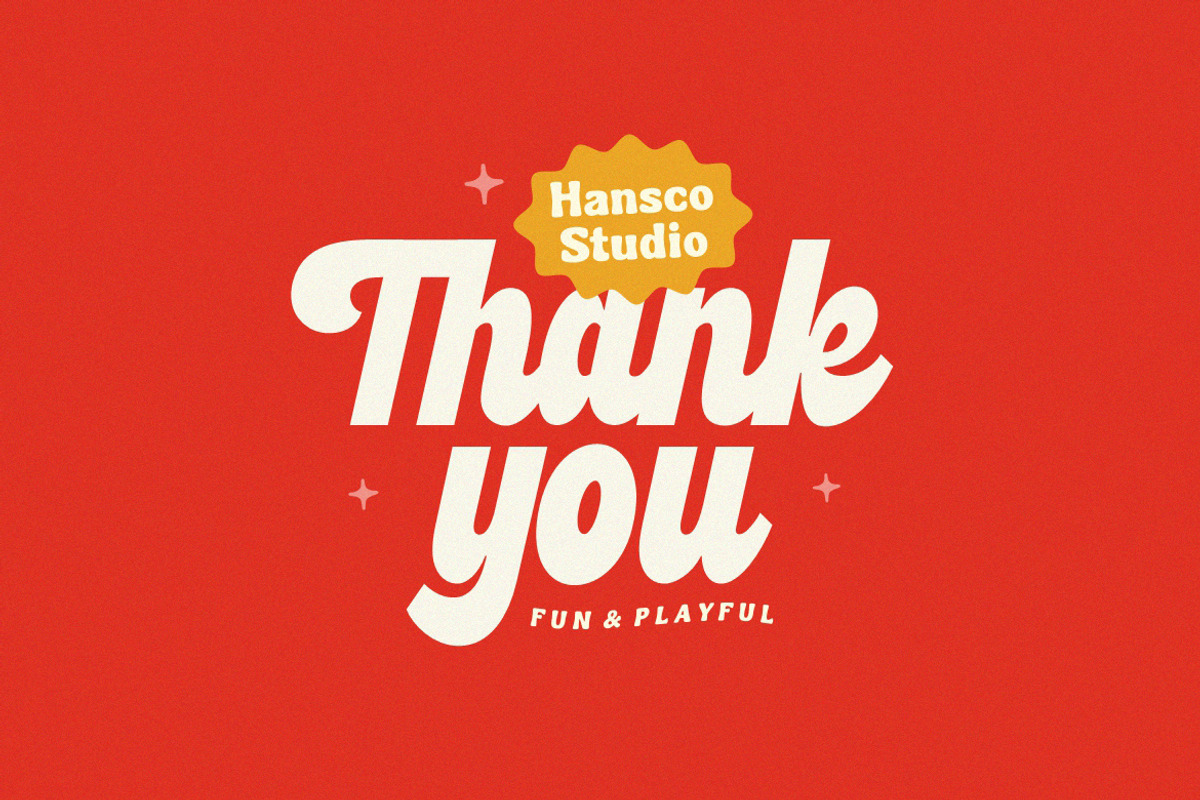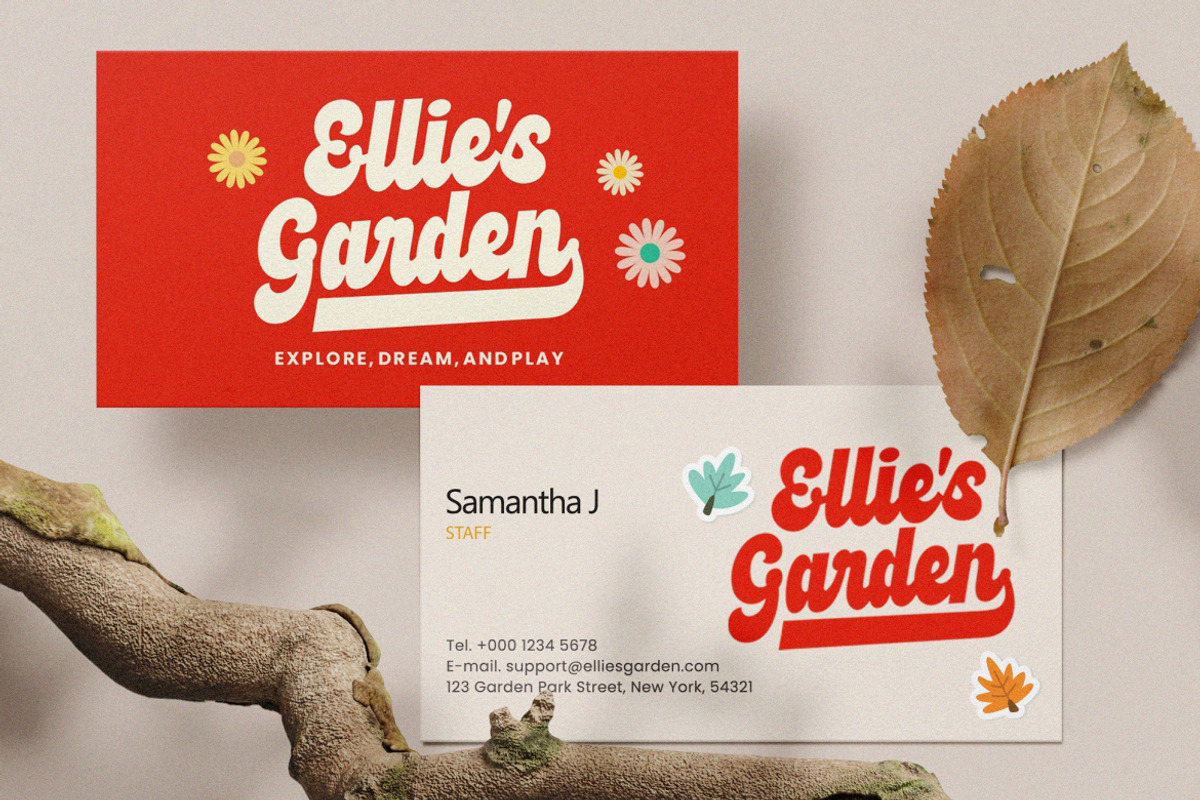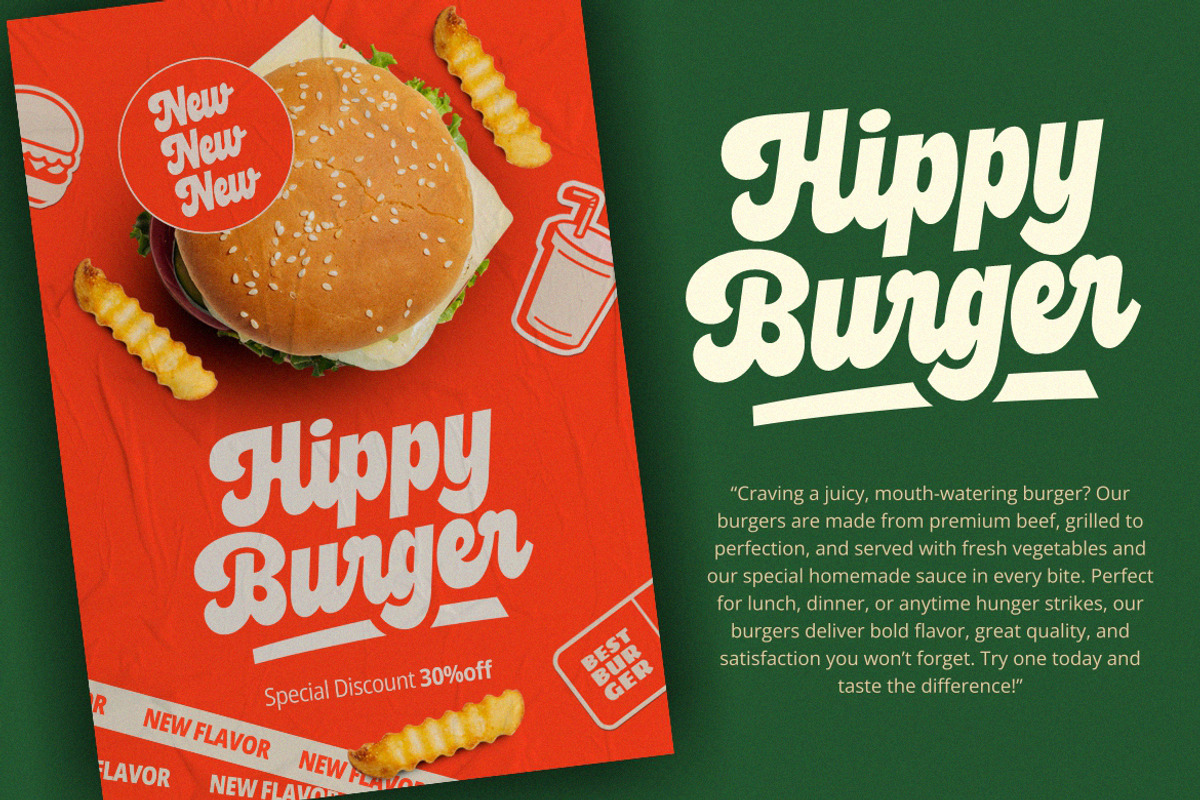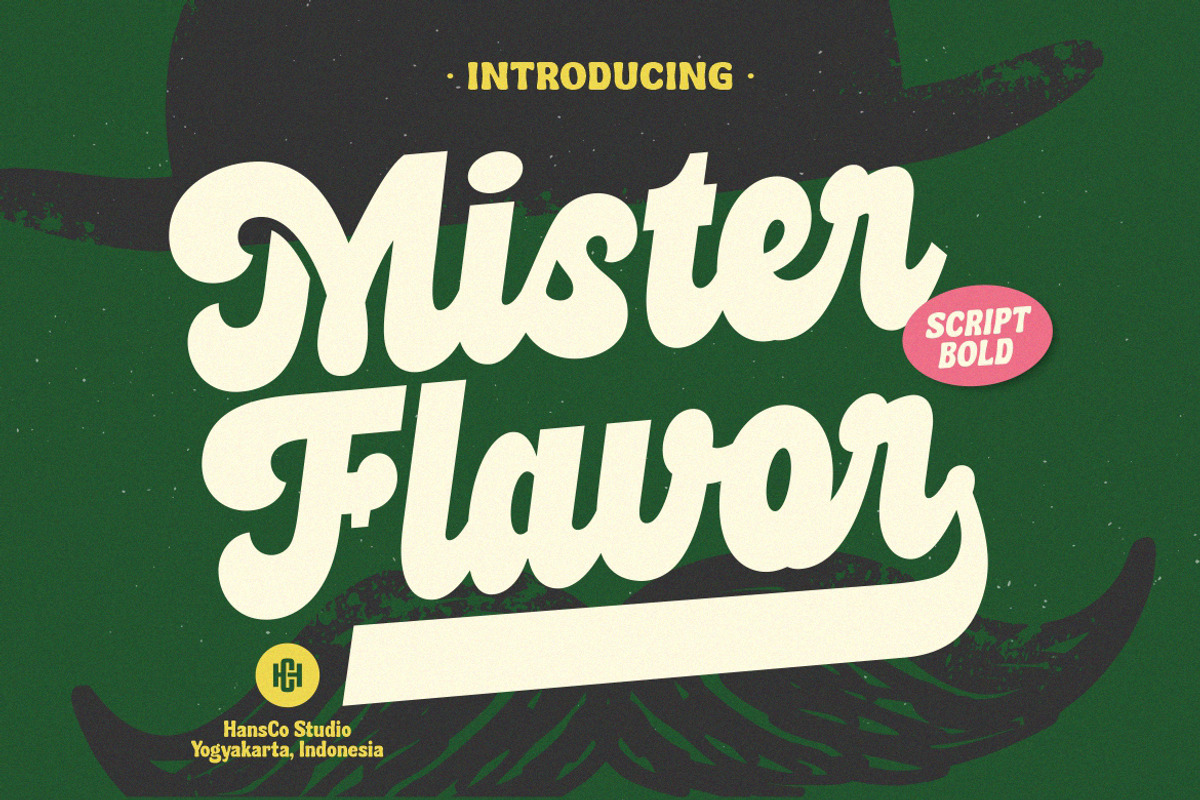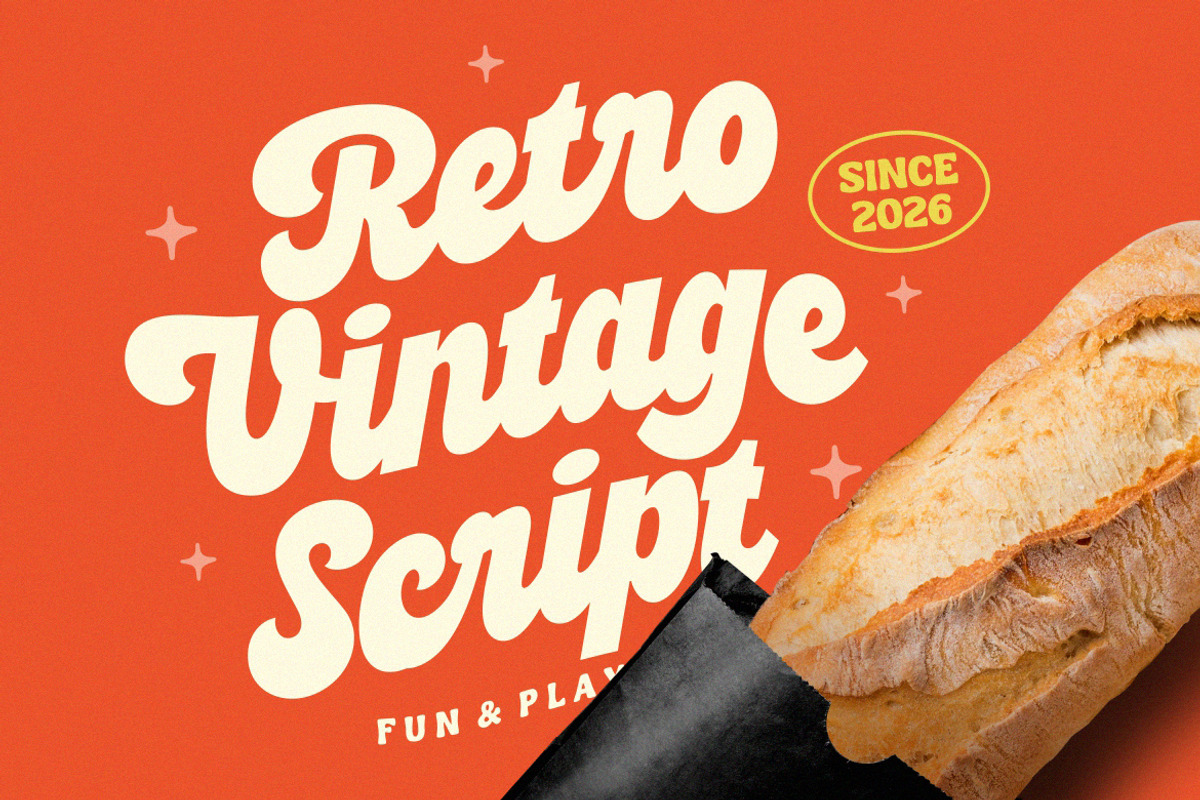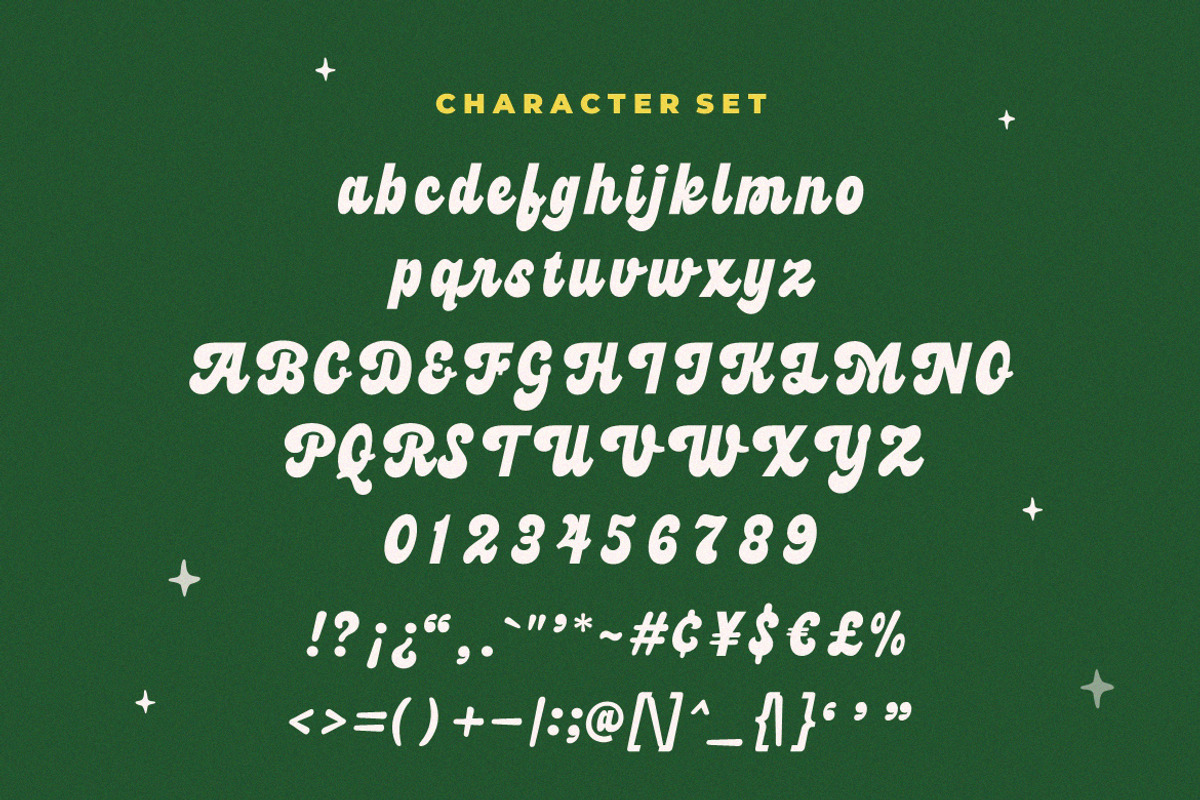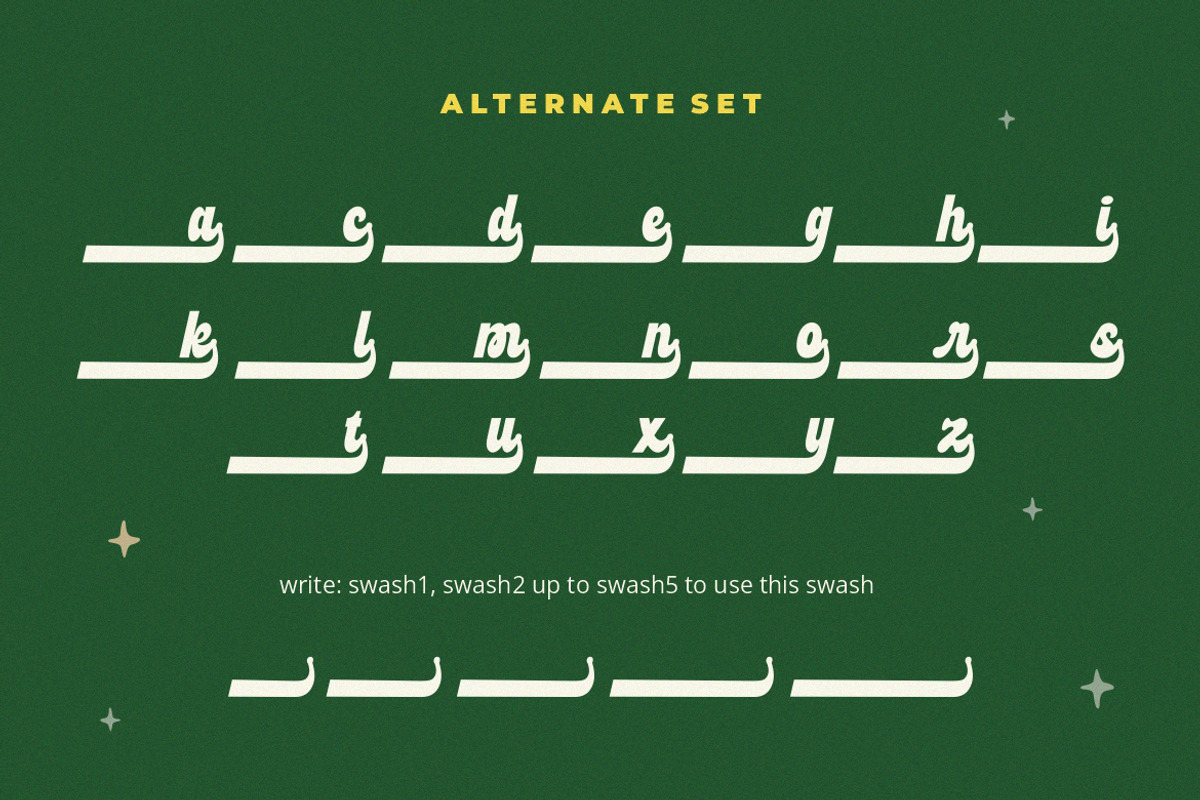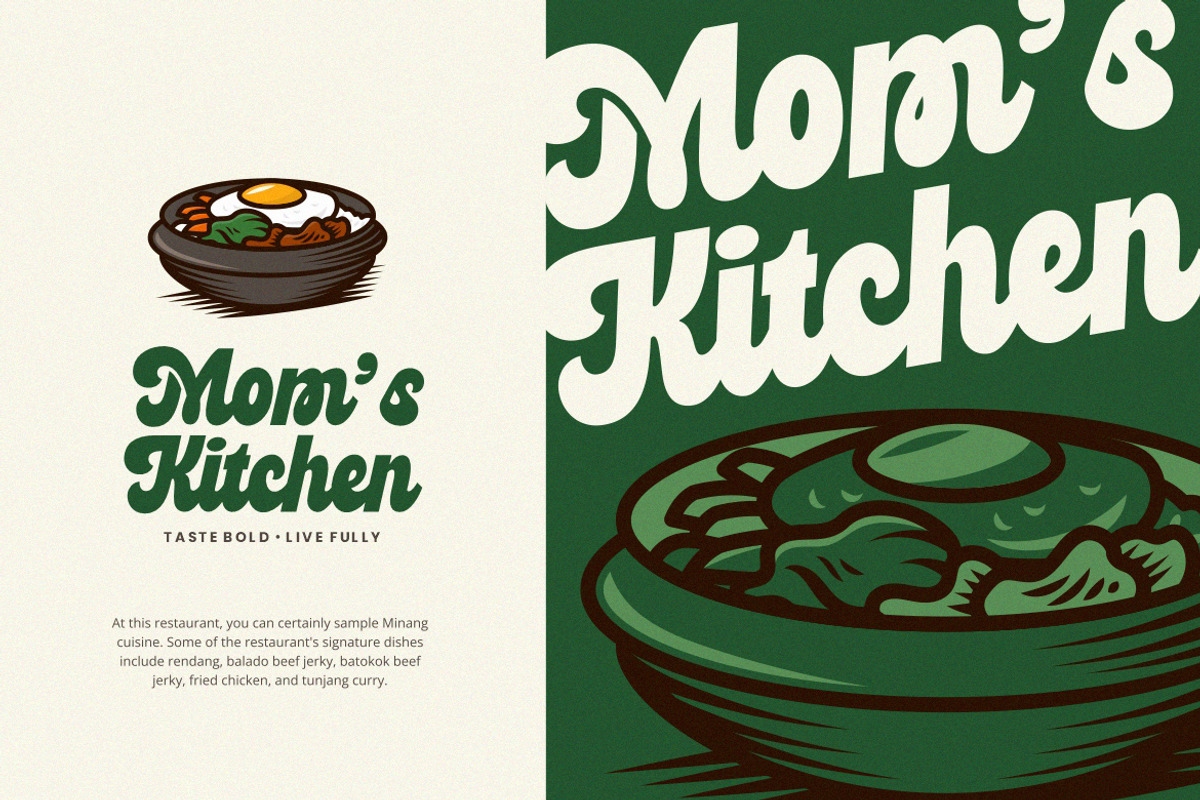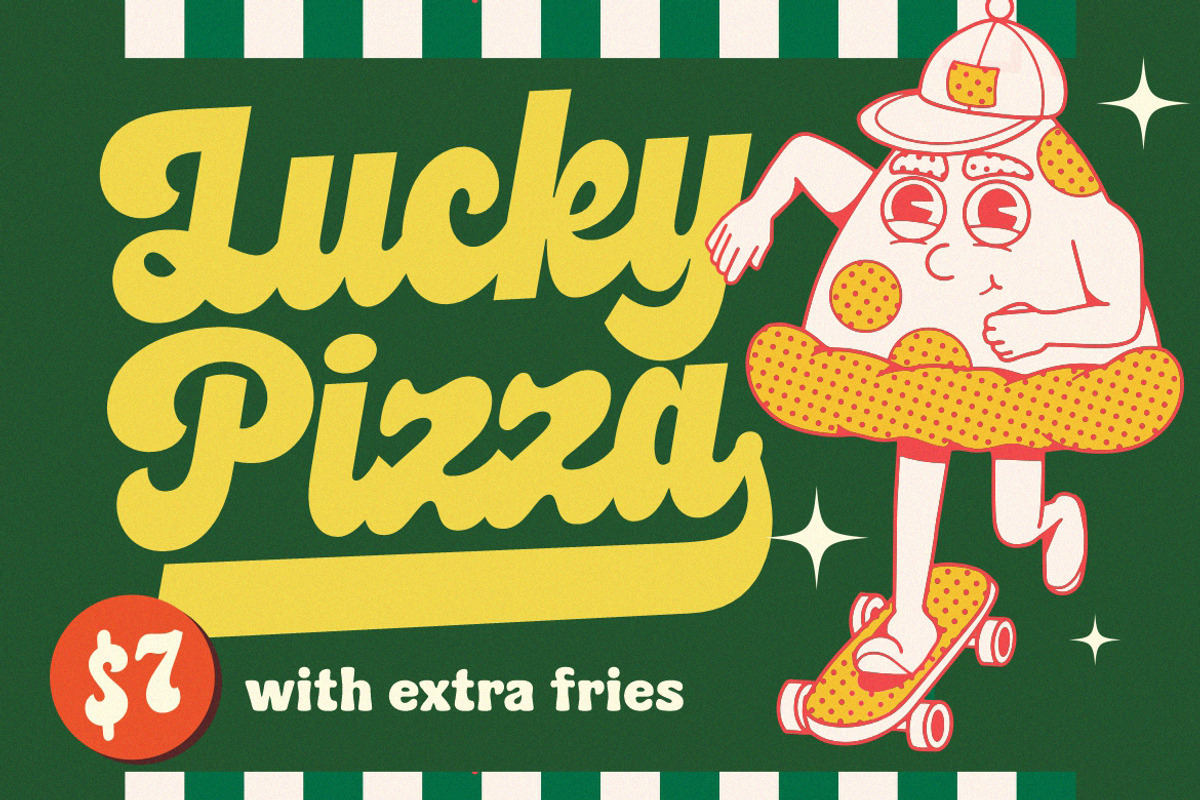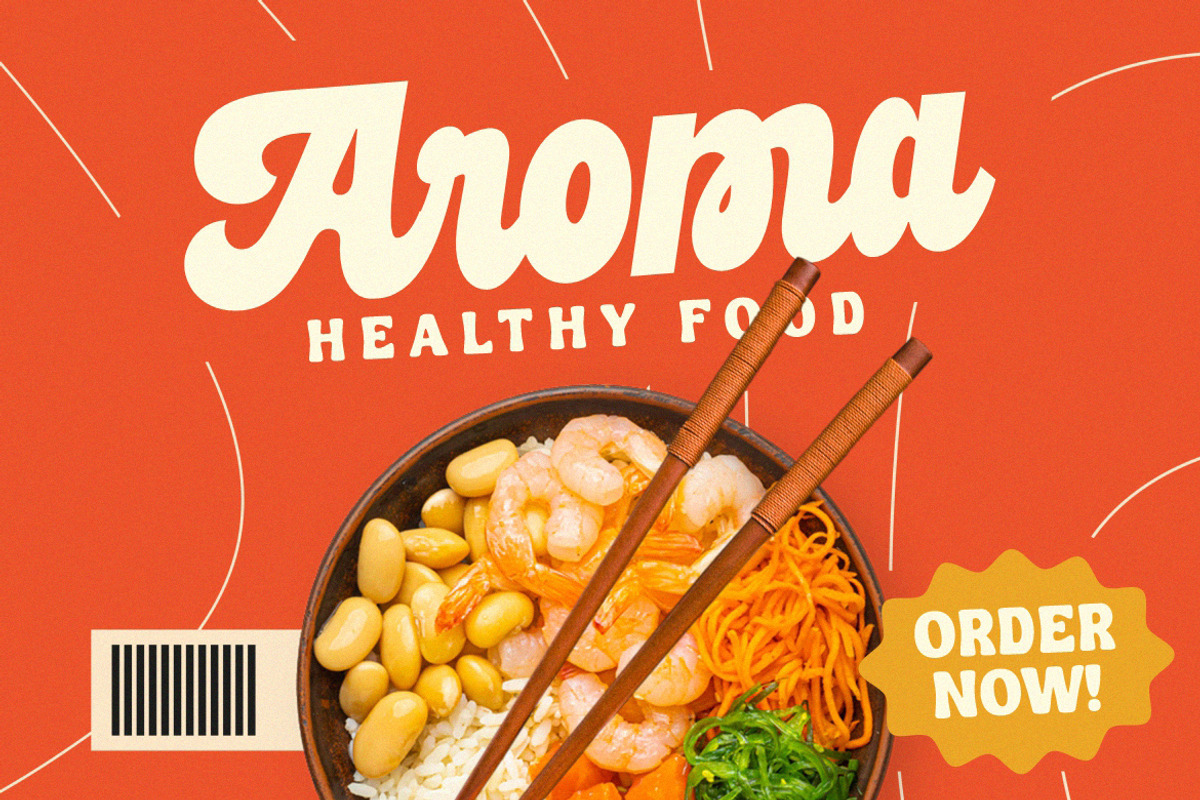
Mister Flavor Font
Bring your brand to life with this bold modern script font designed to stand out. Featuring thick, confident strokes and elegant swash alternates, this font blends a stylish handwritten feel with a clean, contemporary look. Perfect for logos, branding, packaging, and social media designs, it adds personality and professionalism to any project. Whether you want something eye-catching or refined, this font gives you the flexibility to create a truly unique and memorable visual identity.
- Alternate Character